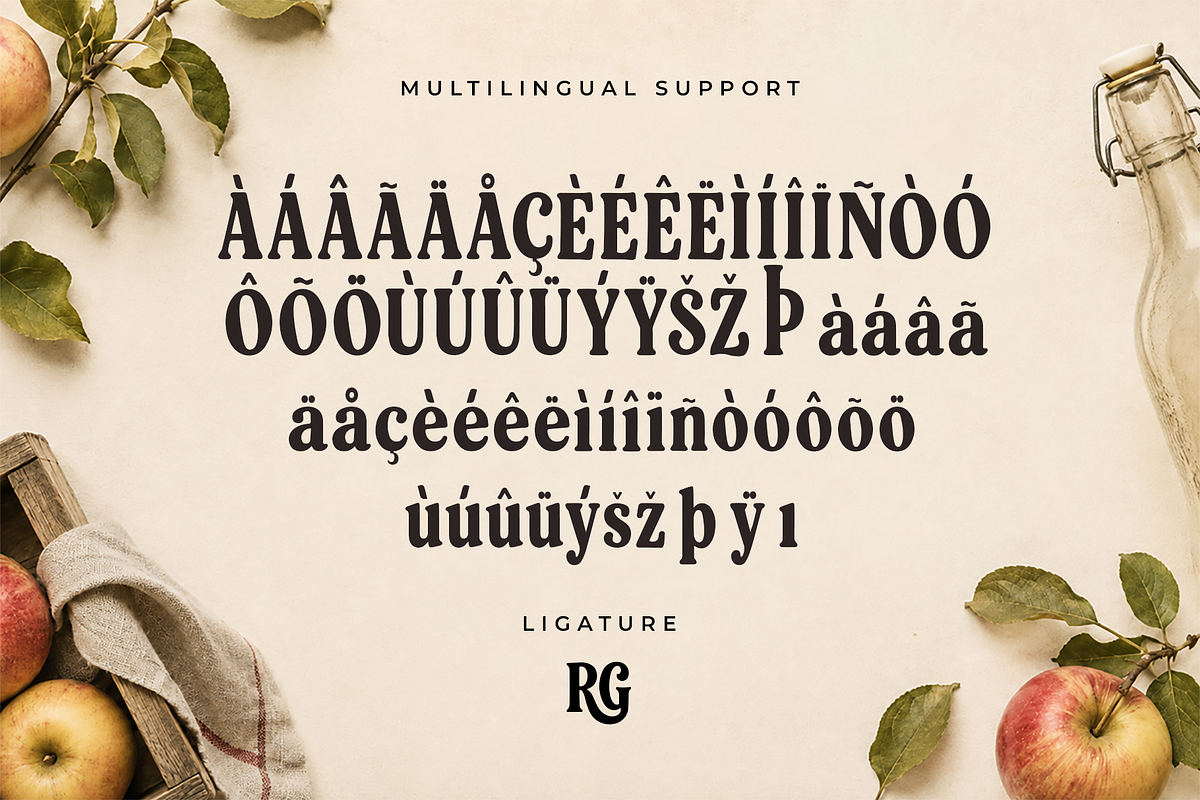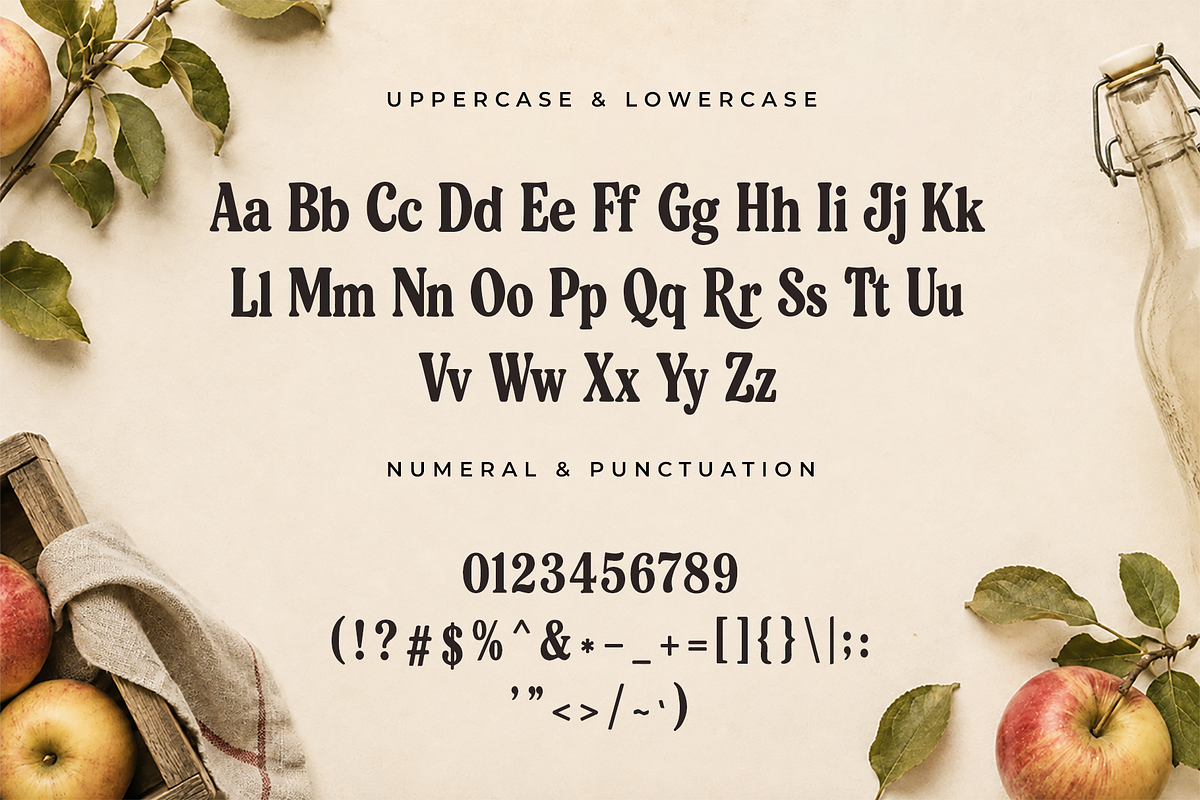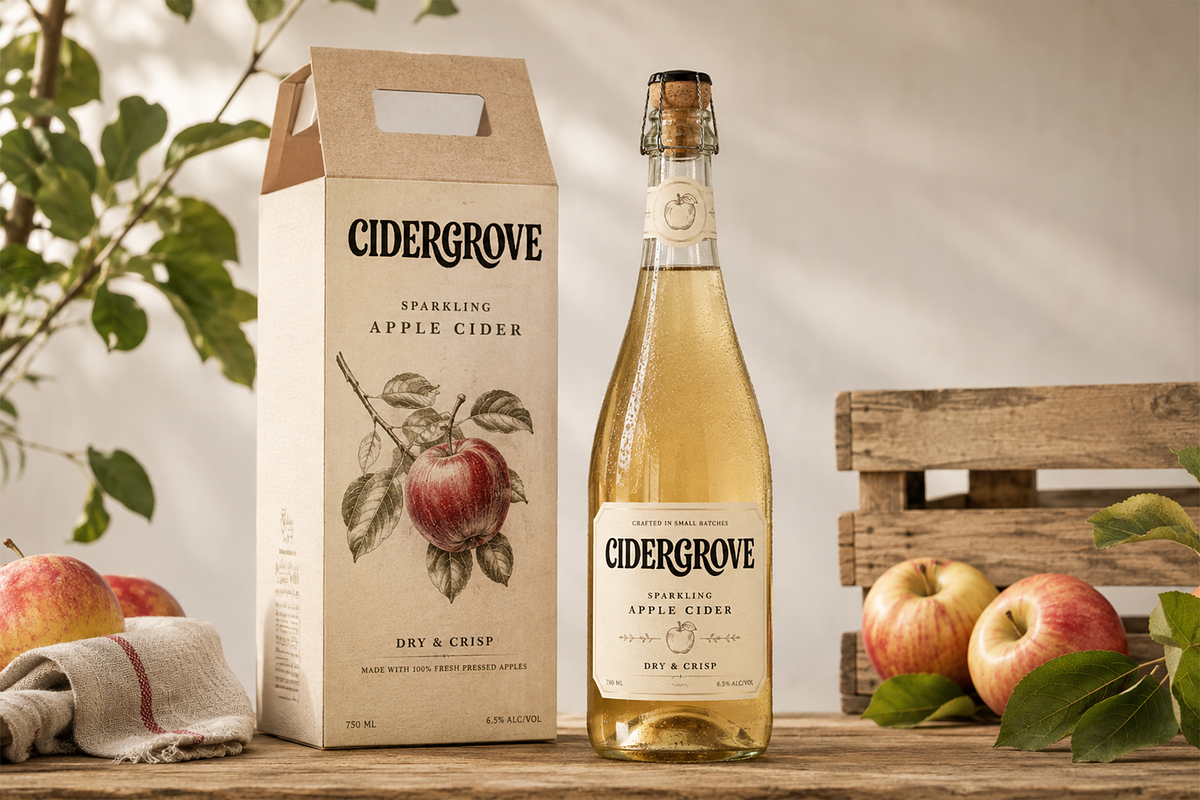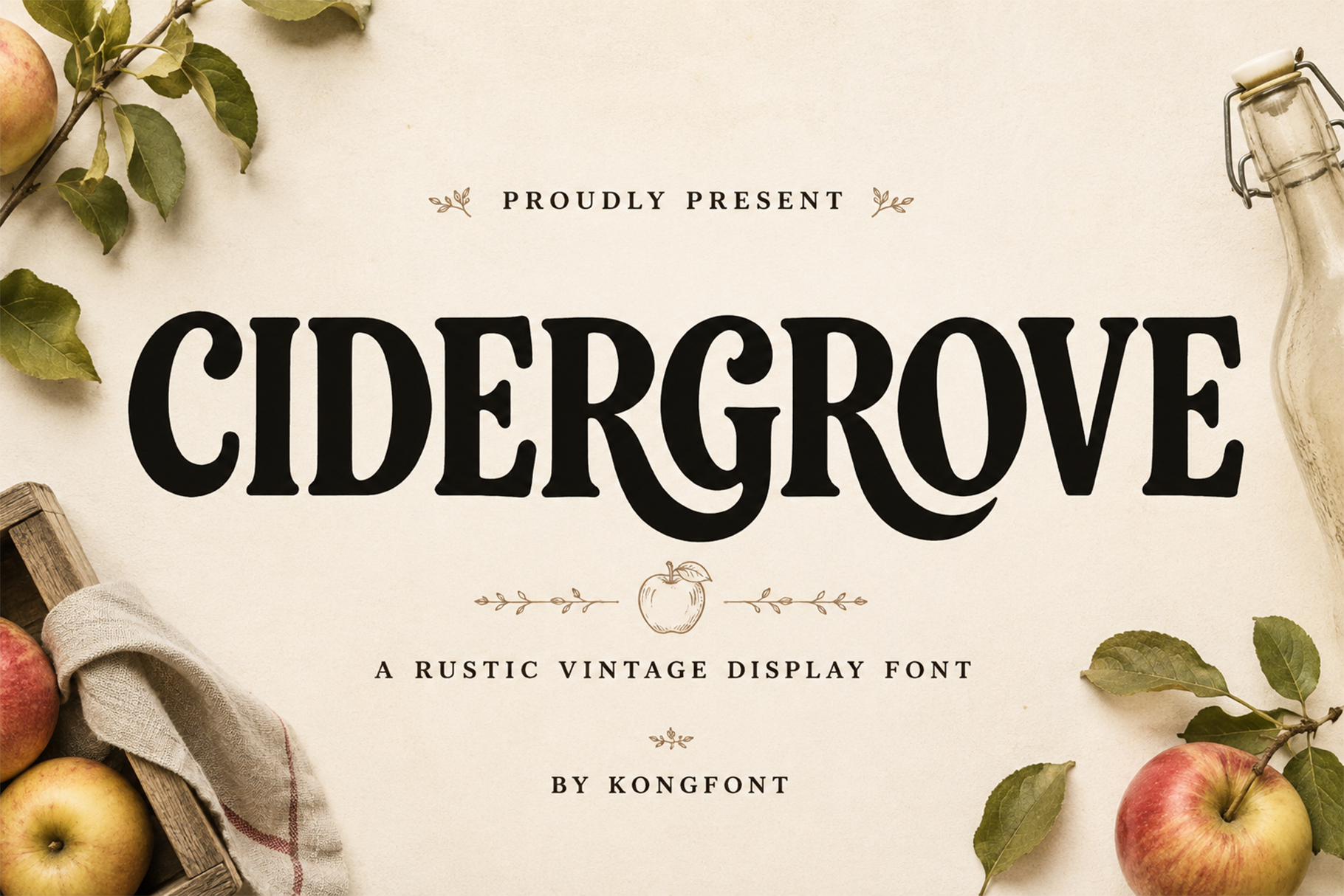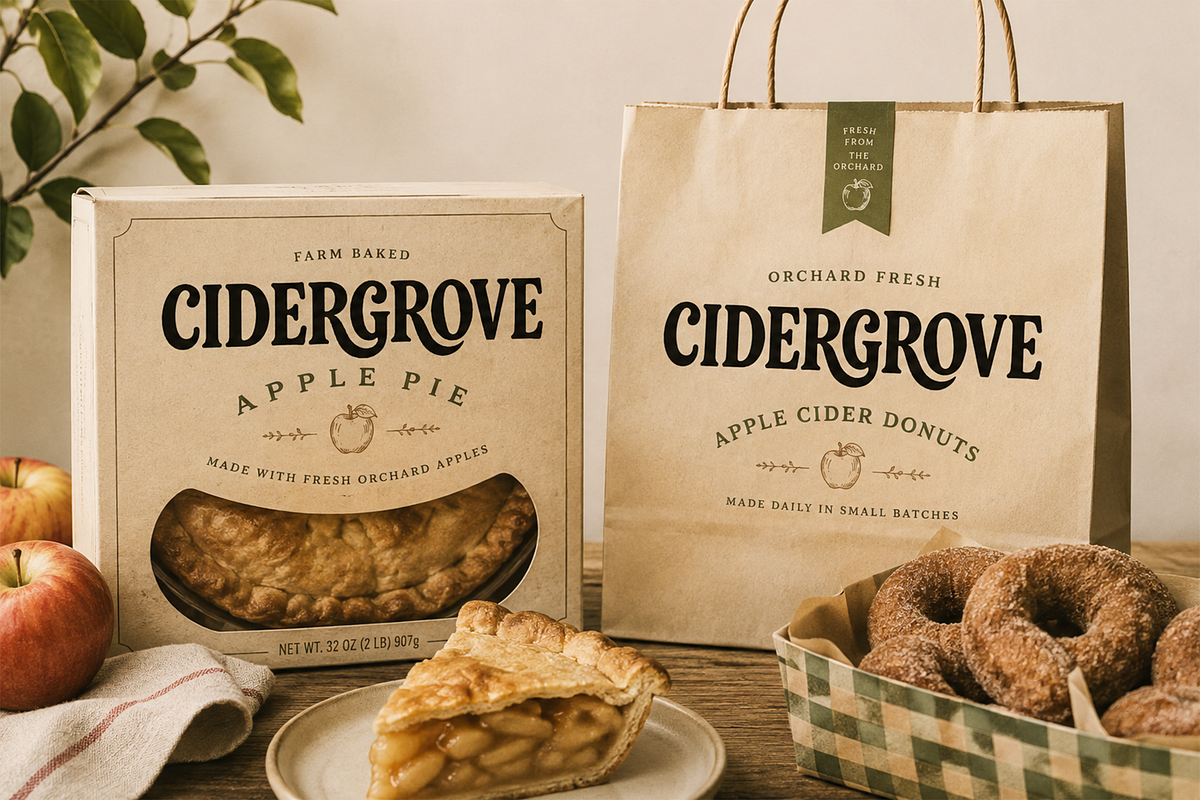
Cidergrove - Rustic Vintage Font
Cidergrove - Rustic Vintage Display Font
Meet "Cidergrove," a rustic vintage display font inspired by orchard signs, farmhouse packaging, handcrafted goods, and the warm atmosphere of autumn harvests. Featuring bold serif forms, smooth curves, and classic proportions, Cidergrove brings a natural and nostalgic character to every composition.
Cidergrove works beautifully for cider brands, bakeries, organic products, farm shops, coffee packaging, restaurants, handmade goods, home décor, autumn events, and rustic lifestyle projects. Its strong display structure creates excellent visual impact while preserving an approachable vintage feel.